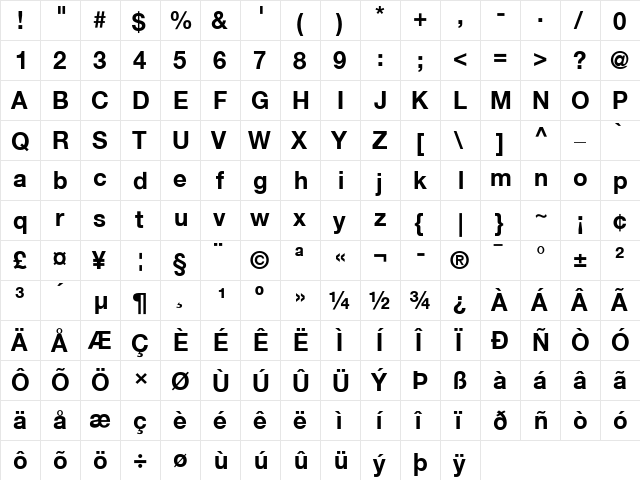
Helvetica 55 Roman Bold Font Preview
Helvetica 55 Roman Bold
Helvetica 55 Roman Bold Font Details
Design Context for Helvetica 55 Roman Typeface
Helvetica 55 Roman offers clean, dependable letterforms without strong stylistic allegiance, making it a practical choice for designers who need flexibility. The heavy weight commands attention and anchors typographic hierarchies.
Pro Tip: Use Helvetica 55 Roman in both headline and body roles to test its range before committing to a single application.